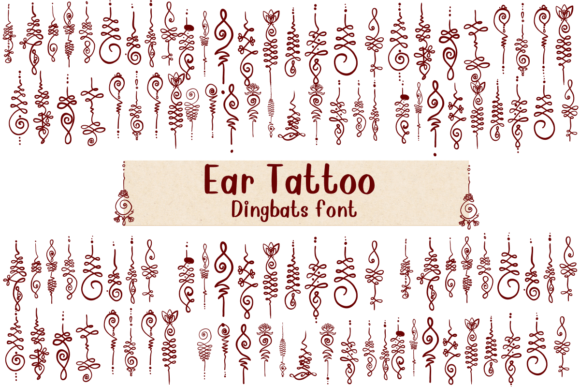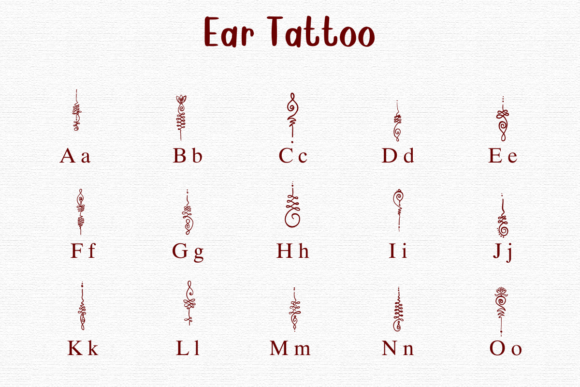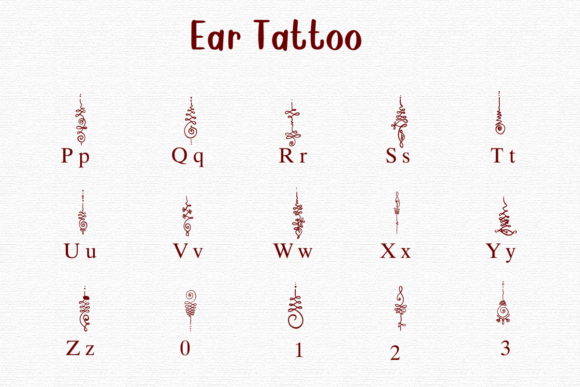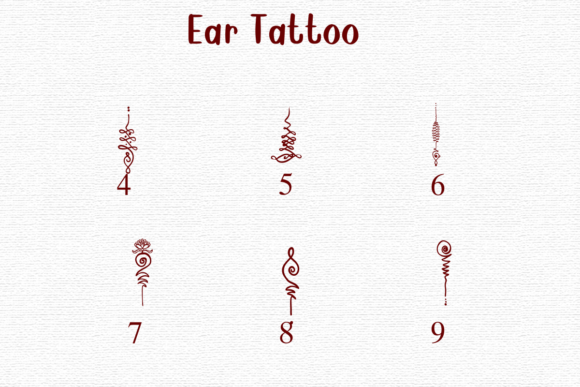
Ear Tattoo Font: Cute Dingbats for Cricut & Playful Design
About the Ear Tattoo Font
From logos to headlines, the Ear Tattoo Font is the perfect choice for making a lasting impression. Ear Tattoo is a fun dingbat font filled with adorable tattoos! Each letter is designed like a cute little tattoo you might find on someone’s ear. It’s perfect for adding a playful touch to your designs or messages.
Ear Tattoo Font shines in projects needing a youthful, playful aesthetic. Ideal applications include short headlines, social media graphics, stickers, and branding for products targeting a young, trendy demographic. It’s less suitable for body text or lengthy content due to its decorative nature and potential for reduced readability.
Pair it with a clean sans-serif like Open Sans for balance, or a slightly more playful rounded sans-serif like Bubblegum Sans for a cohesive, fun feel. For a more sophisticated contrast, a delicate script font could add elegance, but maintain the overall lighthearted mood.
The font’s core personality is undeniably fun and approachable, making it a great choice for brands focusing on youth culture, handmade goods, or quirky, individualistic styles. Avoid using it for projects requiring seriousness or professionalism.